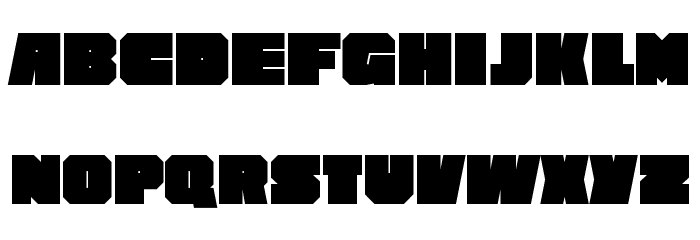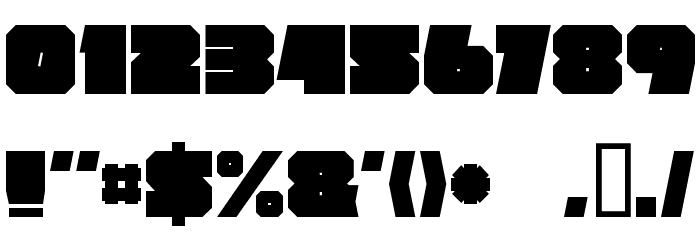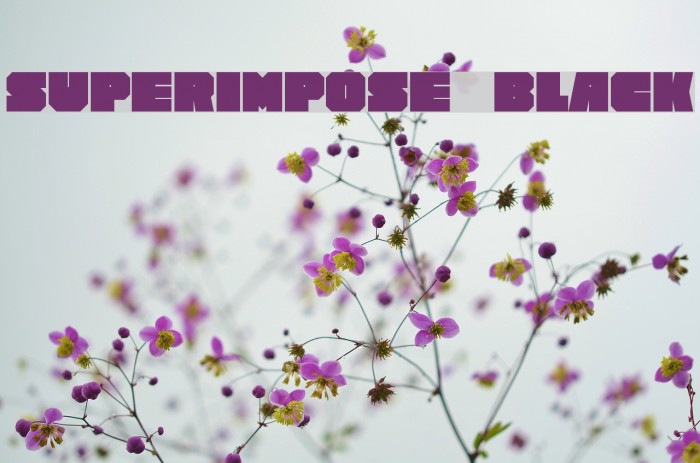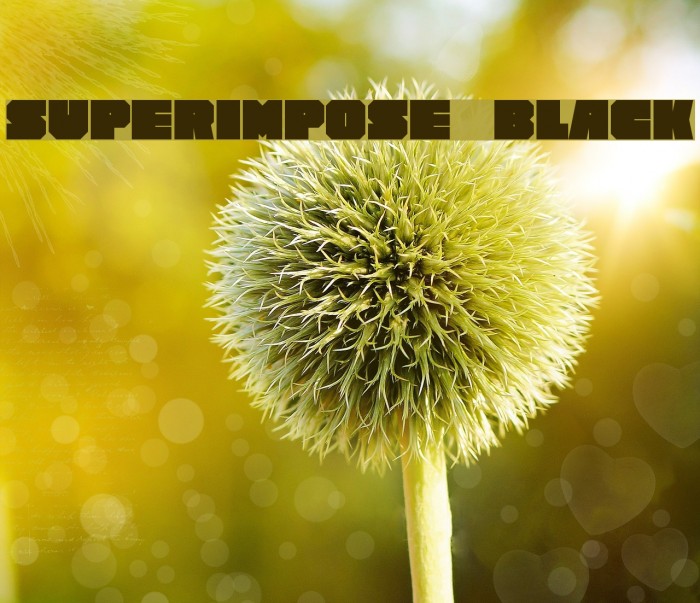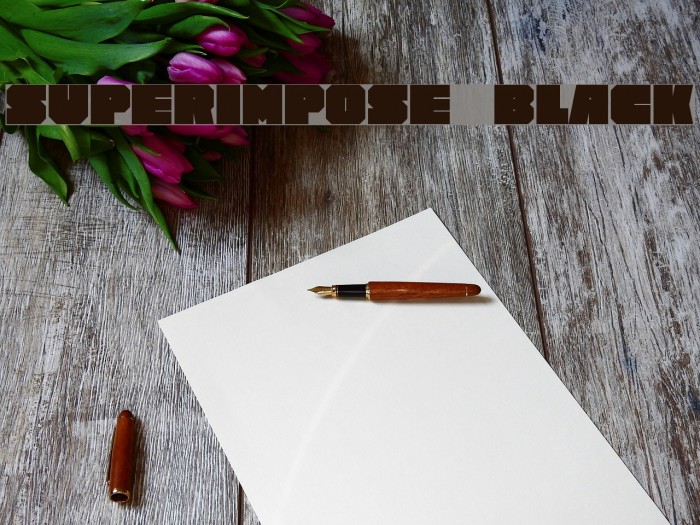
Superimpose Black Font
This bold and striking font features a heavy, geometric design with strong, angular lines and a solid presence. The characters are blocky and robust, with minimal spacing between them, creating a compact and impactful look. The uppercase and lowercase letters maintain a consistent weight, contributing to a uniform appearance. The numerals and special characters follow the same bold style, ensuring cohesion across all elements. This font's design is highly suitable for attention-grabbing headlines and titles, where a strong visual impact is desired.
A bold, geometric font with strong, angular lines and minimal spacing.
- Font: Superimpose Black
- Proposed Projects: Ideal for posters, logos, branding, and any design requiring a bold statement.
- Character Spacing: Tight